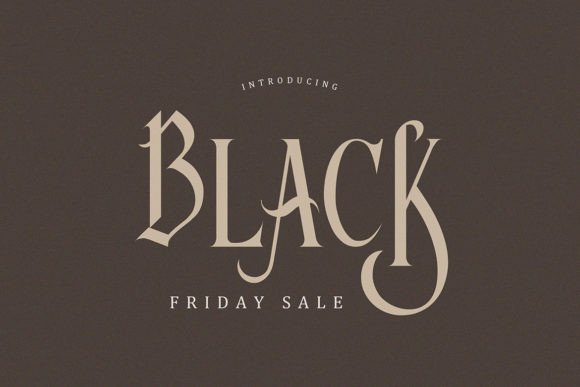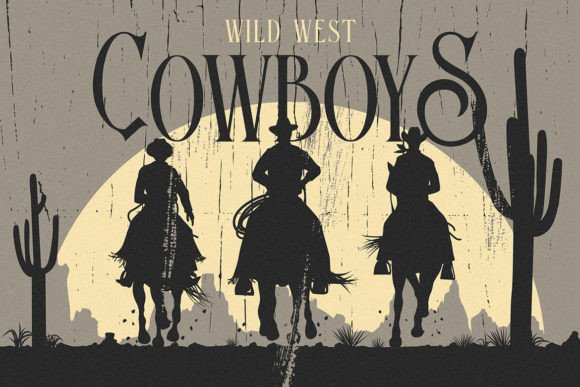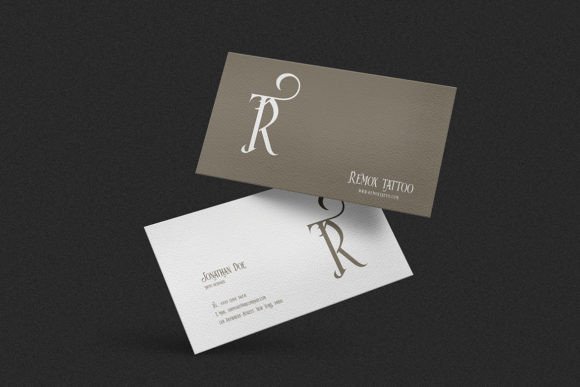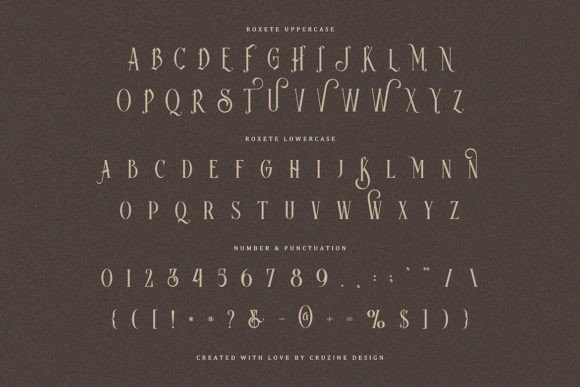
Introduction to Roxete Font
As a designer, there’s nothing quite like the thrill of landing on the perfect font to elevate a creative project. It’s that moment when all the pieces come together, and your design starts to feel truly special. For me, that moment happened when I stumbled upon the Roxete Font – a vintage, trendy, and classy serif font that’s perfect for making a statement.
The Roxete Font is more than just a pretty face; it’s a design resource that offers a unique blend of classic sophistication and modern flair. With its PUA encoded glyphs and swashes, you can access all the details you need to create truly high-quality designs. Whether you’re working on a project that requires a touch of elegance or a dash of whimsy, the Roxete Font is sure to deliver.
Key Features of Roxete Font
- High-quality design resource suitable for various creative projects
- Includes 1000+ glyphs, making it a versatile and comprehensive font for any design need
- Designed with a modern aesthetic, Roxete Font is ideal for use in logos, branding, and digital design
Honest Review: Roxete Font
As a designer, I’m always on the lookout for high-quality design resources that can elevate my creative projects. Recently, I came across the Roxete Font, and I’m excited to share my honest review with you.
- The Roxete Font is a beautifully crafted typeface that’s perfect for creative projects.
- The font is highly customizable, allowing you to adjust the opacity, weight, and even add a transparent background.
- The font library is limited, with only a few styles to choose from.
Overall, I’m impressed with the Roxete Font’s quality and flexibility. While it has some limitations, it’s an excellent resource for designers working on creative projects. The transparent background feature is particularly useful for designing engaging visual elements. If you’re looking for a free design resource to elevate your next project, I’d definitely recommend checking out the Roxete Font.
Roxete Font
The Roxete Font is a high-quality design resource ideal for creative projects. It features a transparent background, making it perfect for overlaying on images or videos.
To get the most out of the Roxete Font, use it in conjunction with other design elements, such as images and graphics. Experiment with different font sizes and styles to create a visually appealing design.
The Roxete Font is ideal for a variety of creative projects, including:
The Alex Brush Font is a elegant, handwritten font that’s perfect for designers looking for a high-quality, free download. It’s great for creating a sense of warmth and intimacy, making it ideal for designing blog headers, social media graphics, and other online content. When to use: Blogging, social media, and online branding. How it compares to Roxete Font: Alex Brush Font has a more delicate and refined look, making it suitable for projects that require a touch of sophistication.
Is the Roxete Font suitable for high-resolution printing?
Yes, the Roxete Font is designed to be high-resolution and suitable for printing. Its clear and crisp design ensures that it will look great in both digital and print formats. However, please note that the quality of the print will also depend on the printing equipment and settings used.